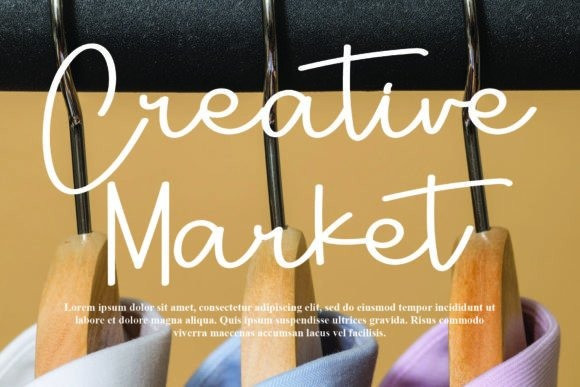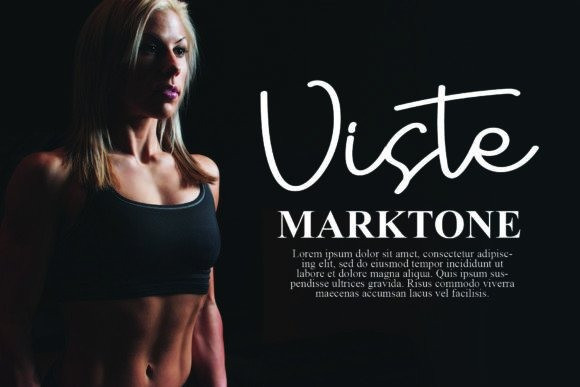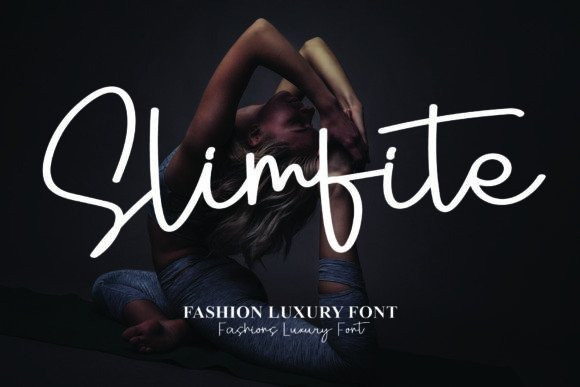
Slimfite Handwriting Font
Slimfite Handwriting Font is a quirky handwritten font that will bring your design into a happy and fun mood. This font is perfect for branding, packaging, logotype, headline, wedding invitation, and more.